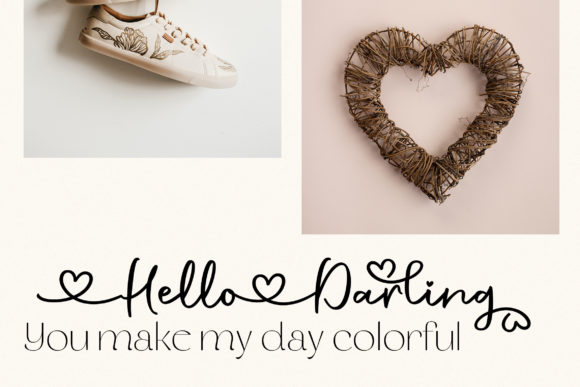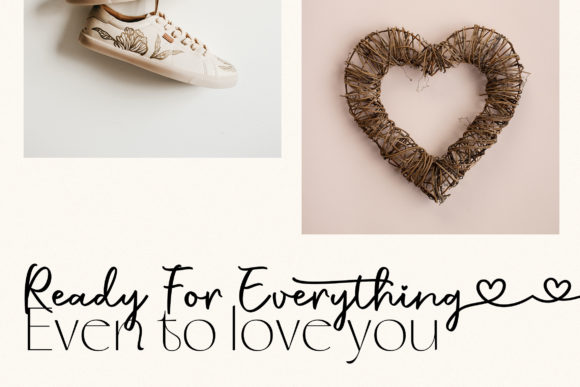
Crowd Heart Script Font
db-ku.com - Script & Handwritten -- Crowd Heart Script is a beautiful and light handwritten font with a unique feel and a stunning impact. It will add a luxury spark to any design project that you wish to create! This font is PUA encoded which means you can access all of the amazing glyphs and ligatures with ease!